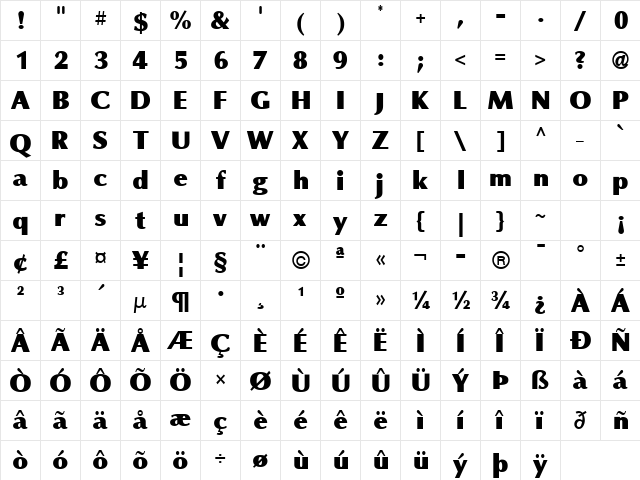
Omni Regular
Design Context for Omni Typeface
Omni takes a measured approach to typography — its balanced proportions and neutral character make it a reliable workhorse for both digital and print work.
Pro Tip: Use Omni in both headline and body roles to test its range before committing to a single application.